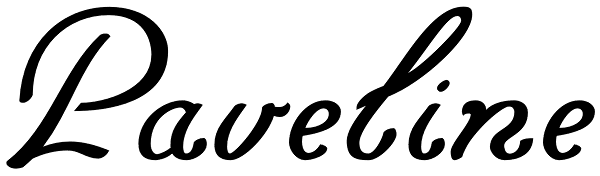
Paveline
Paveline is a punctuated script; by which we mean it has the look and character of handwriting, but the glyphs are discrete entities to aid legibility. It is actually based on a moderately stylized adaptation of our chief designer's handwriting. Use...